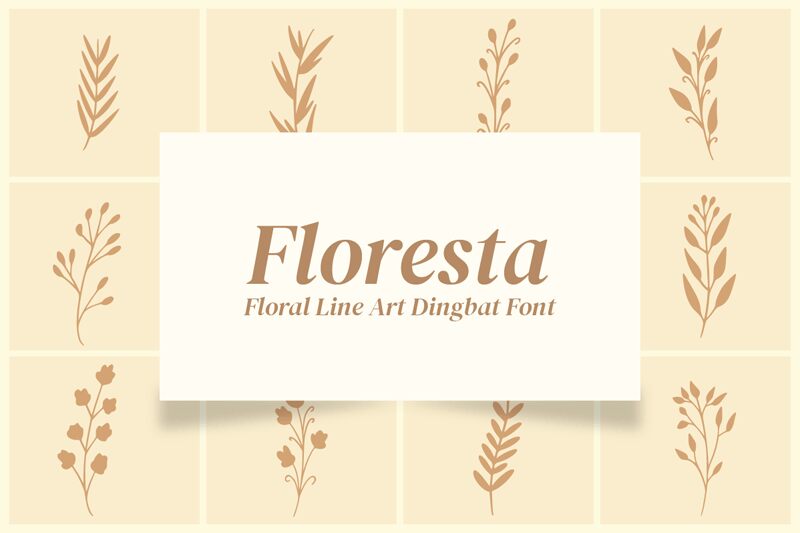
Floresta
Floresta, designed by Muhammad Yafinuha, is an enchanting dingbat font that embodies the beauty of nature in its intricate floral line-art style. With its delicate and ornate designs, this font is perfect for adding a touch of whimsy to various creative projects.
Use Floresta to create stunning invitations, greeting cards, or even decorative elements for websites and blogs. Its unique character set allows you to effortlessly incorporate the wonders of nature into your designs, making them truly captivating and unforgettable.
Let Floresta breathe life into your projects and transport your audience to a world filled with natural charm.